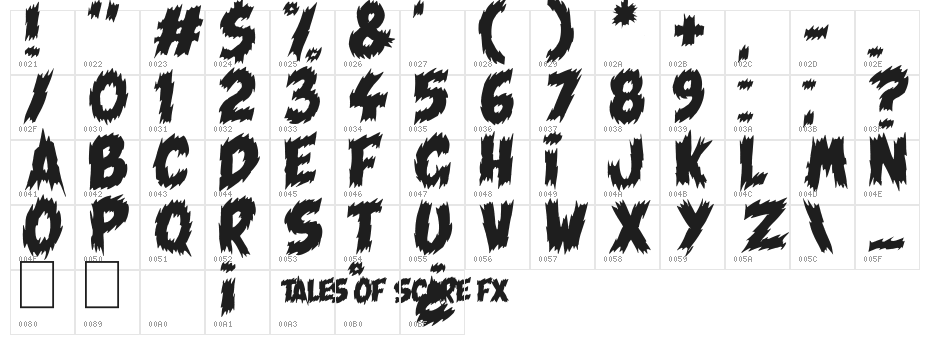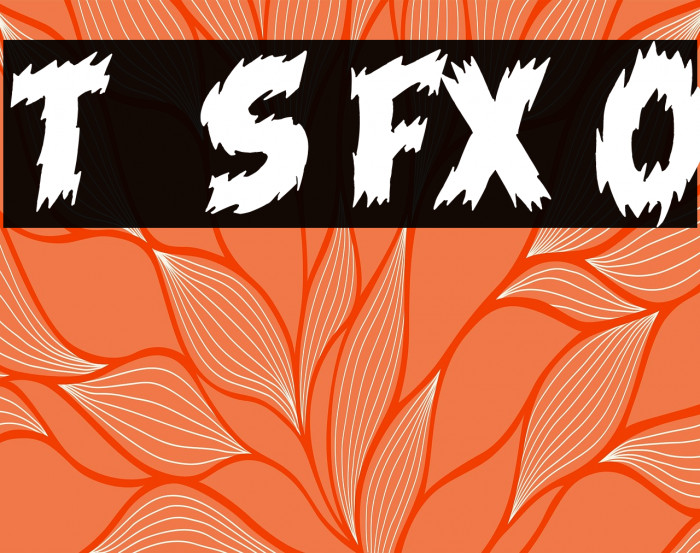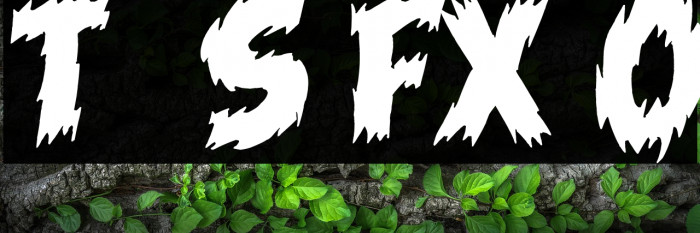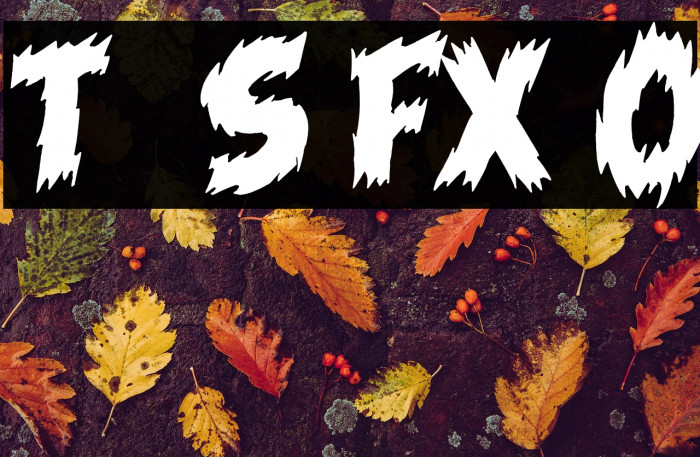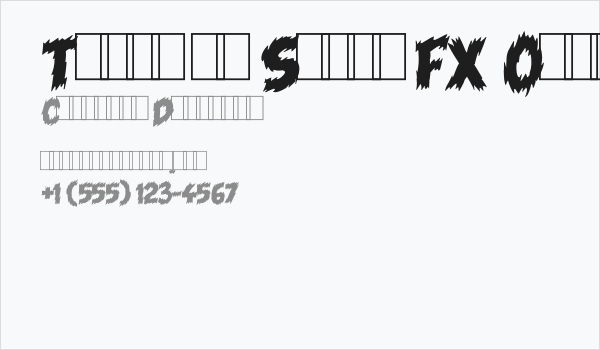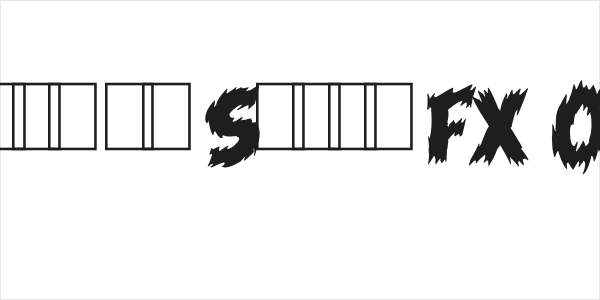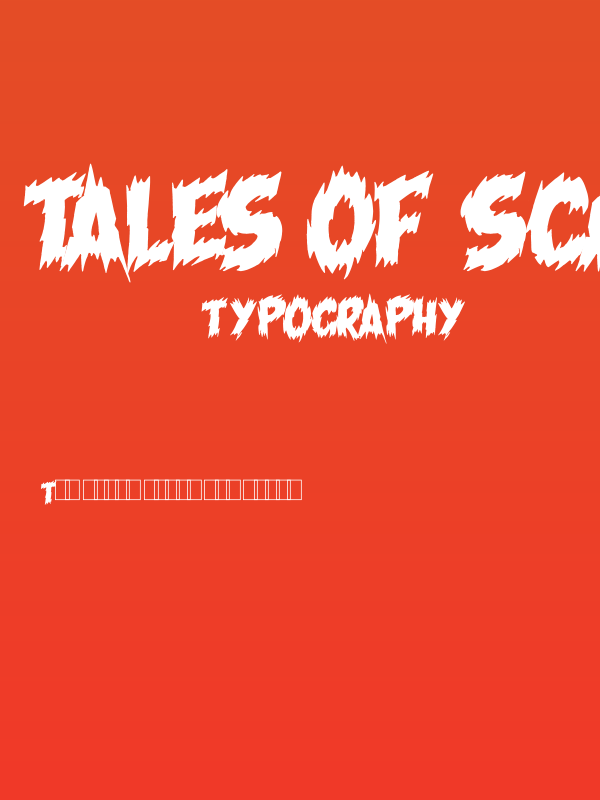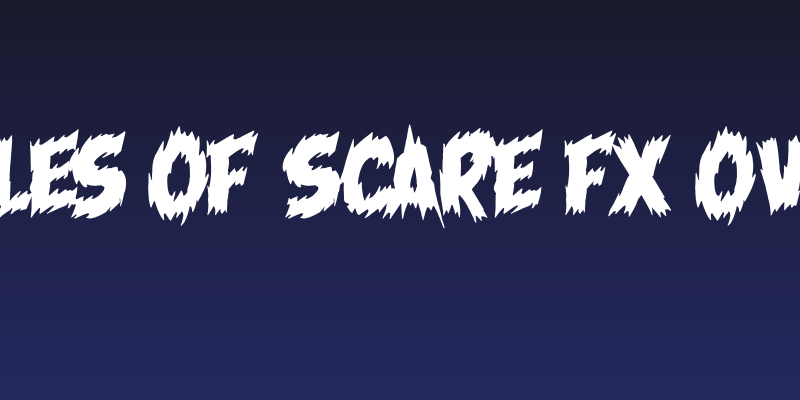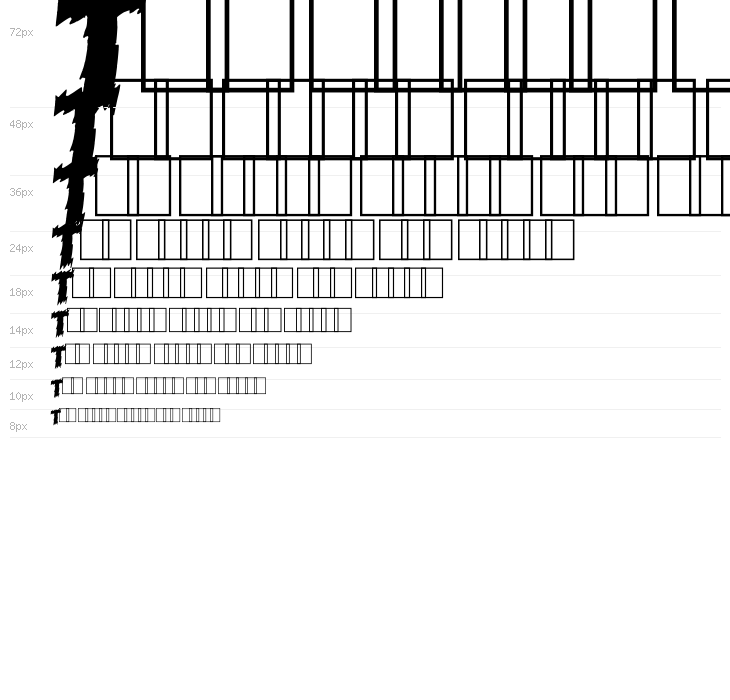
Tales of Scare FX Over Font
Tales of Scare FX Over Description
This font features a jagged, distressed appearance reminiscent of horror and thriller themes. The characters are bold and irregular, with sharp edges and a chaotic style that evokes a sense of unease and excitement. The uppercase and lowercase letters maintain a consistent design, with exaggerated spikes and uneven strokes, creating a visually striking effect. Numbers and special characters follow the same aesthetic, ensuring a cohesive look across all text elements. This font is perfect for projects that aim to capture a spooky or edgy atmosphere, making it ideal for Halloween-themed designs, horror movie posters, or any creative work that requires a dramatic and intense visual impact.
| Proposed Projects | Ideal for Halloween designs, horror movie posters, spooky event invitations, and edgy graphic novels. |